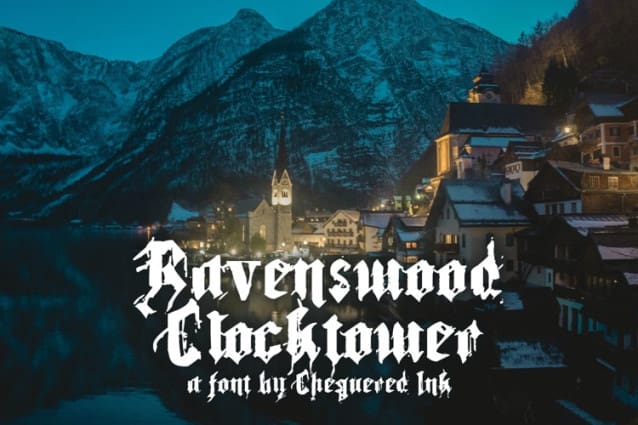
Ravenswood Clocktower Font
Ravenswood Clocktower Font, is a bold and impressive classic blackletter font. It’s ideal for any design that requires a decisive, distinctive touch. Add it to your projects with confidence and you will love the results.